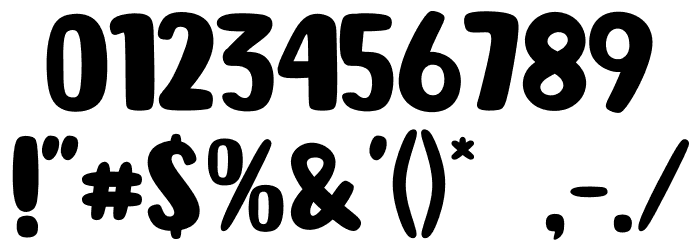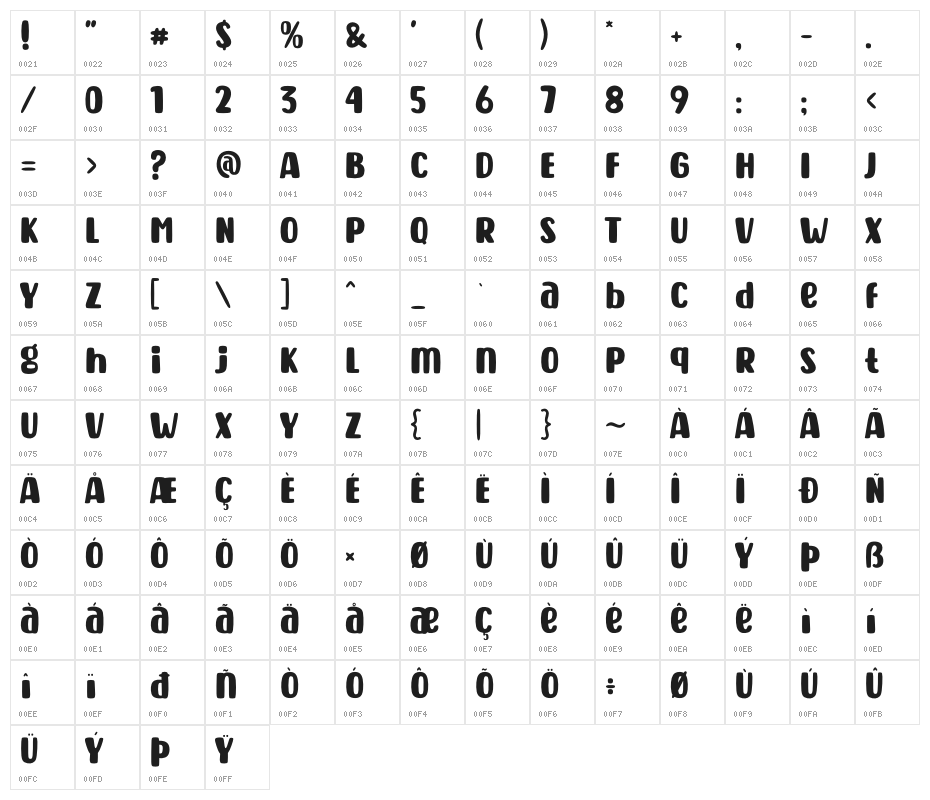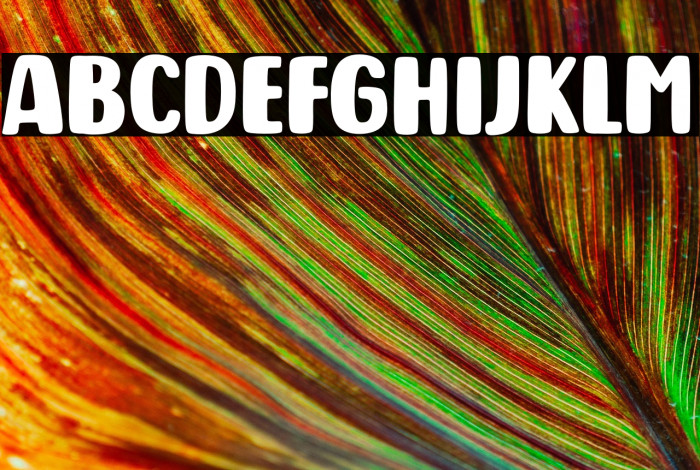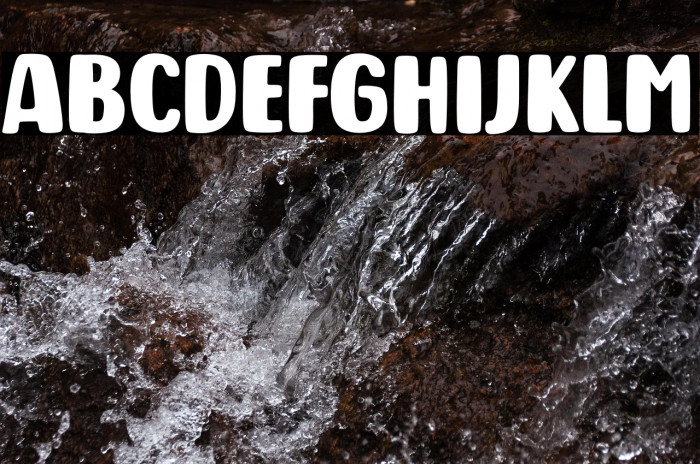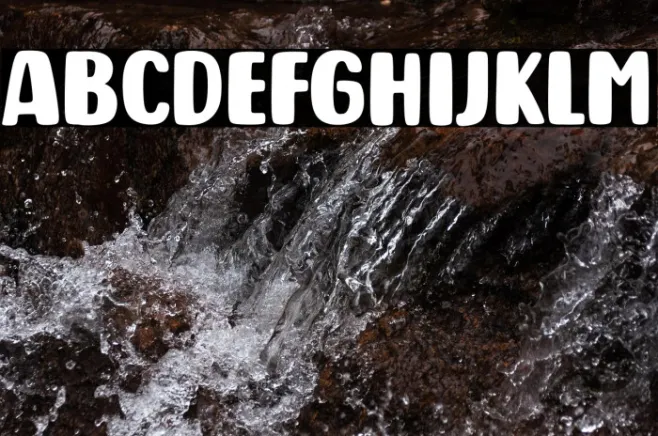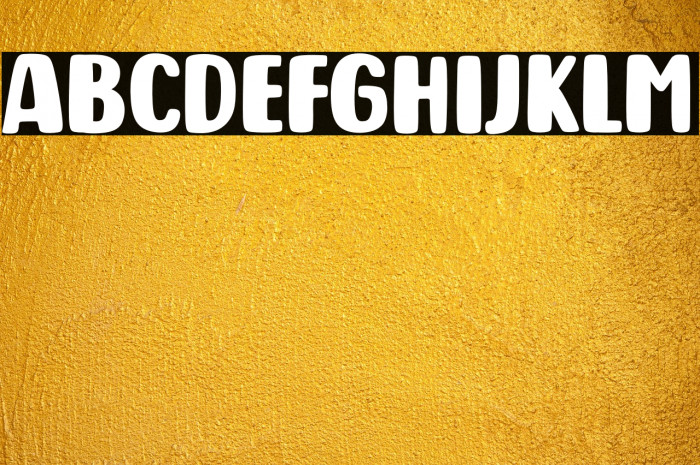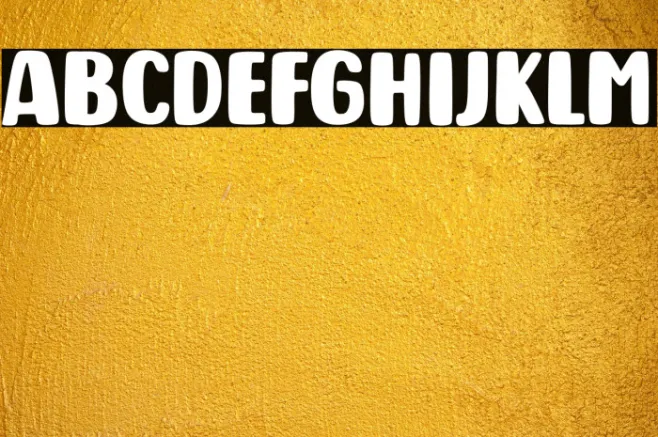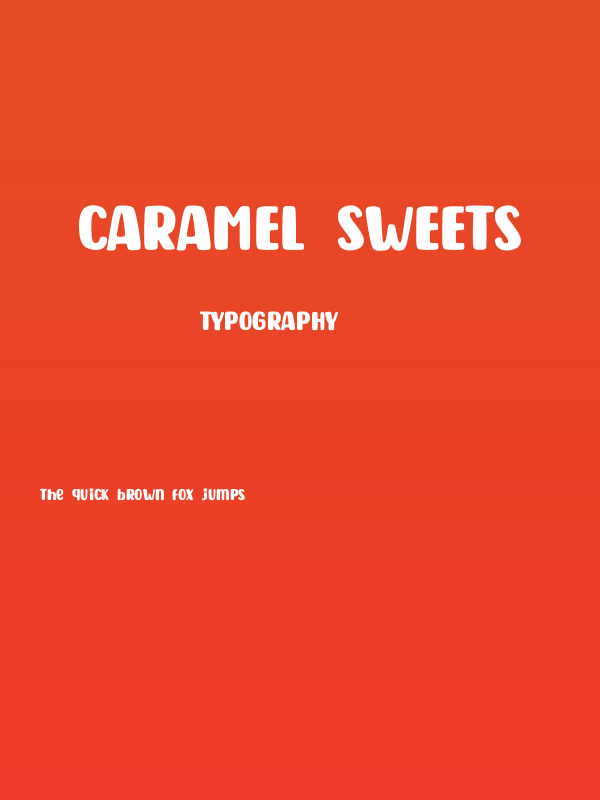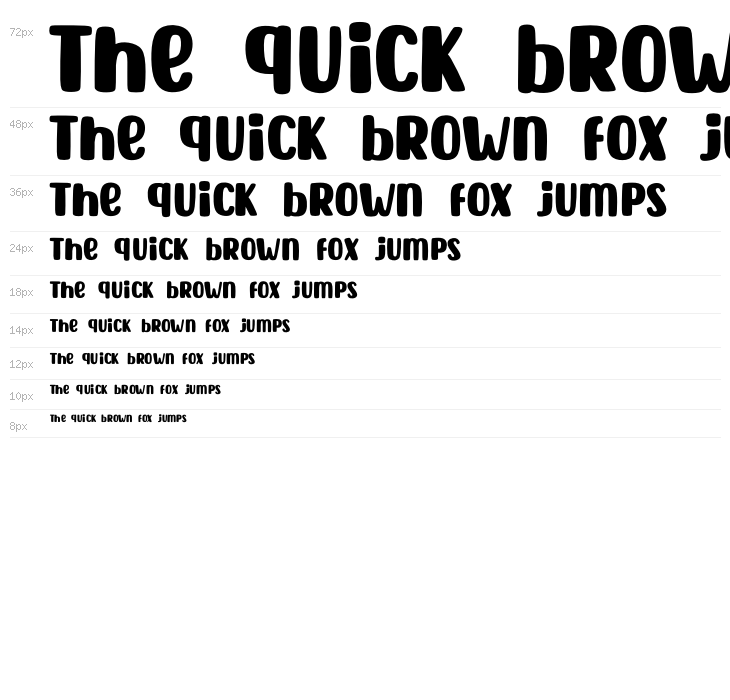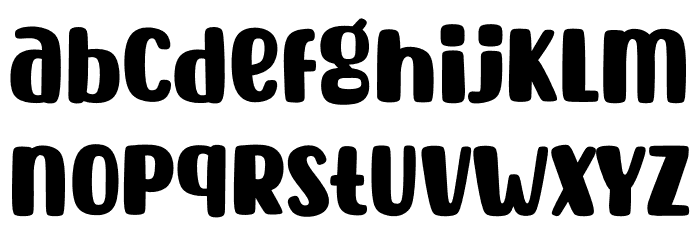
Caramel Sweets Font
Caramel Sweets Description
This playful and bold font features rounded, thick strokes that give it a friendly and approachable appearance. The characters are evenly weighted, with a consistent thickness throughout, creating a uniform look. The rounded edges and lack of sharp angles contribute to its soft and inviting style. This font is highly legible, making it suitable for a variety of uses where a fun and engaging tone is desired. The numbers and special characters maintain the same playful aesthetic, ensuring consistency across all text elements.
| Proposed Projects | Ideal for children's books, playful branding, product packaging, and event invitations. |